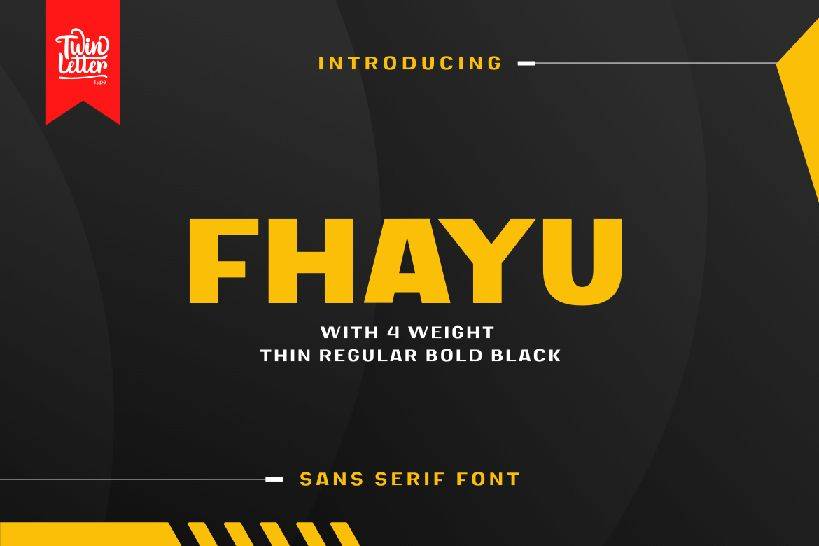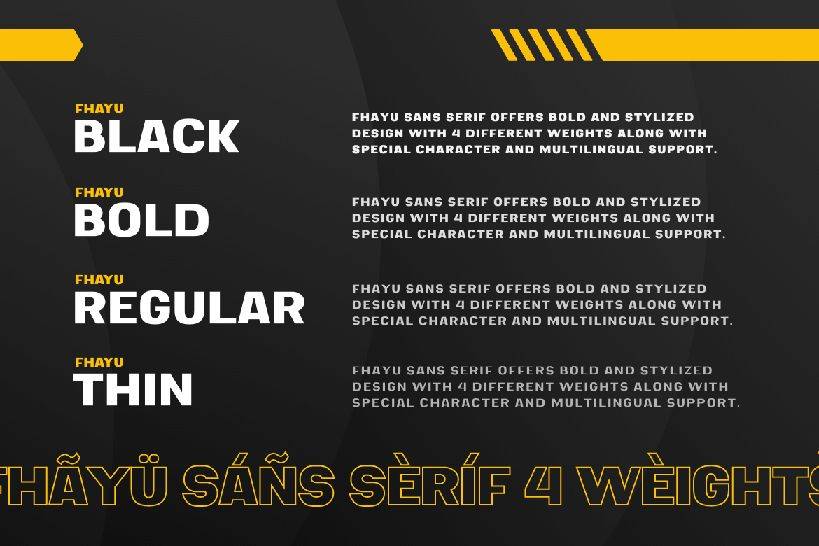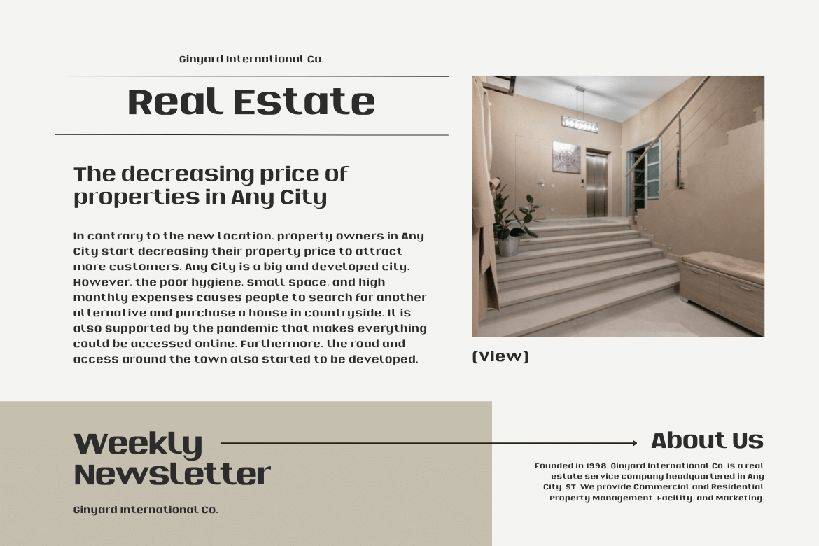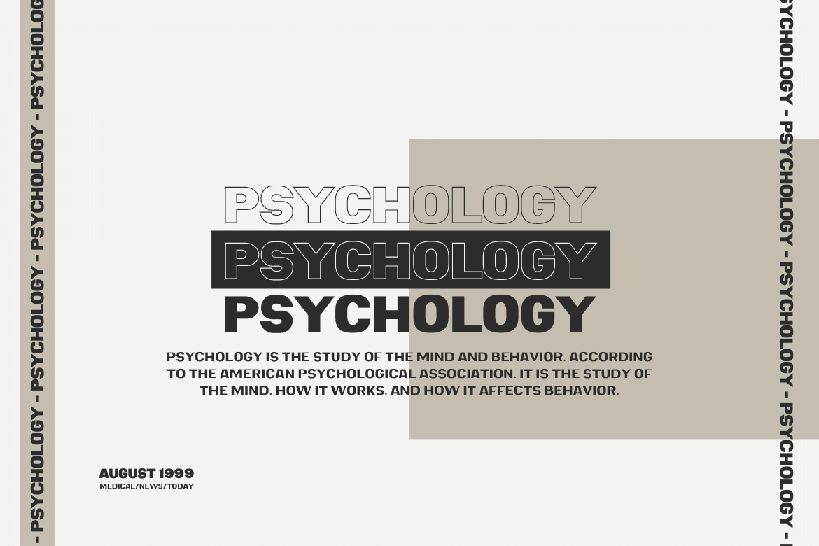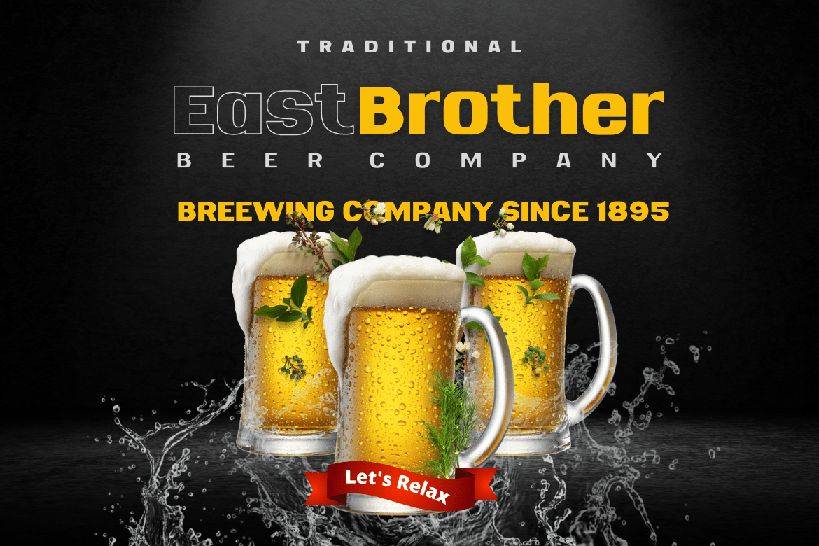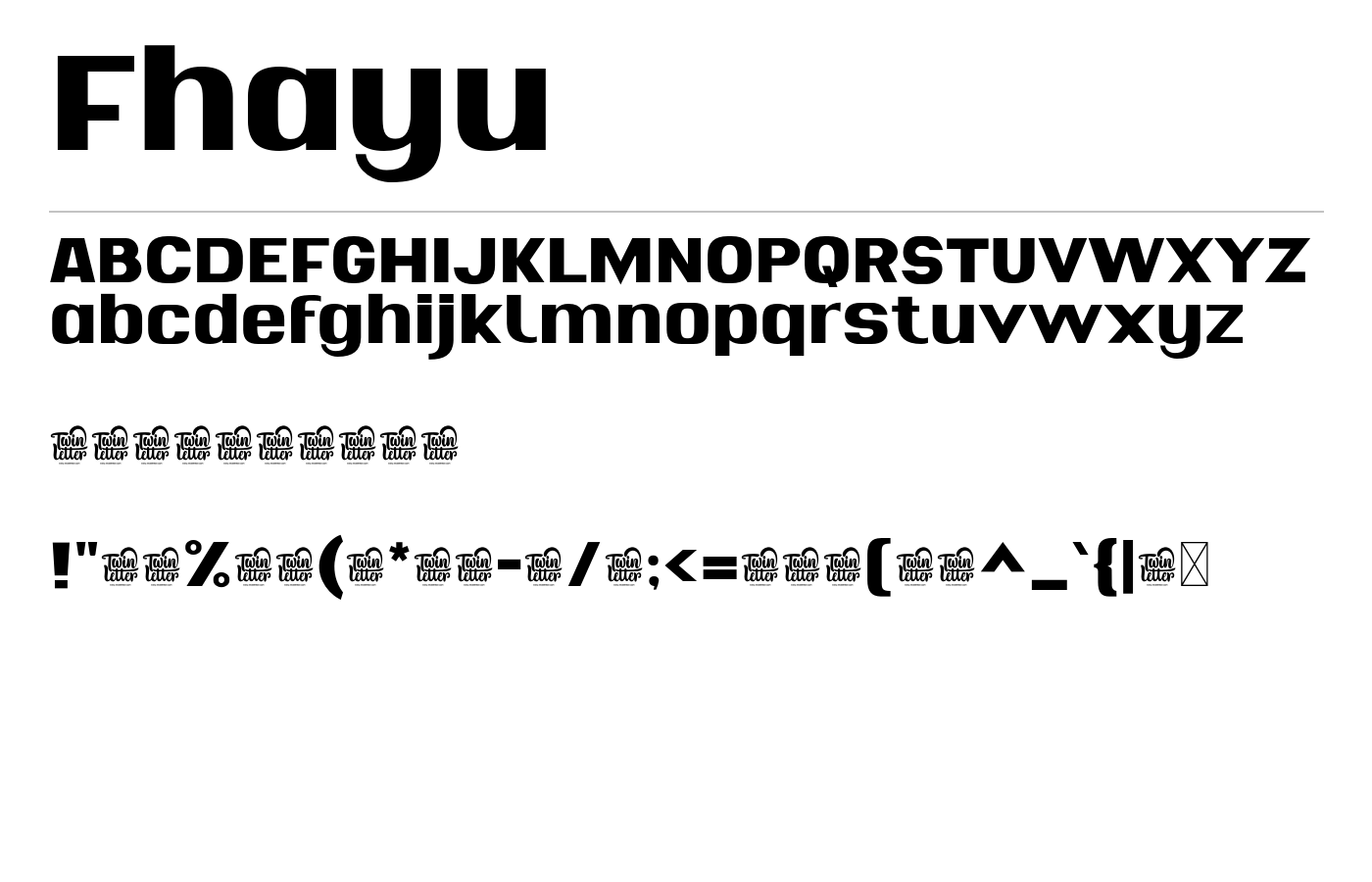
Fhayu is a bold and compact sans serif font with a strong, clean structure that makes it highly legible and versatile. Its sturdy letterforms with moderate x-height and slightly rounded edges convey a modern and approachable feel, ideal for impactful headlines, branding, and digital use. This font works well where clarity and bold presence are needed, such as logos, posters, and web design.
Fhayu Font
About Fhayu Font